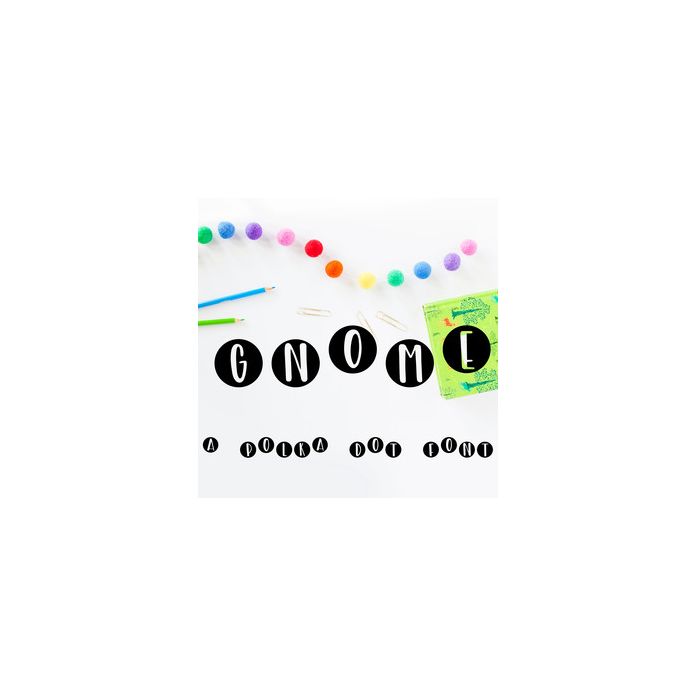
This quirky little font is a fun polka-dot addition to any project! Hand written font with transparent letters. Over 100 characters. Available in an OTF file.